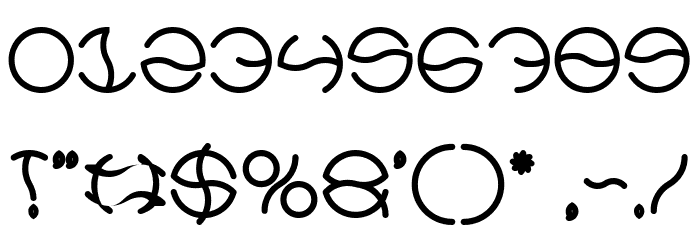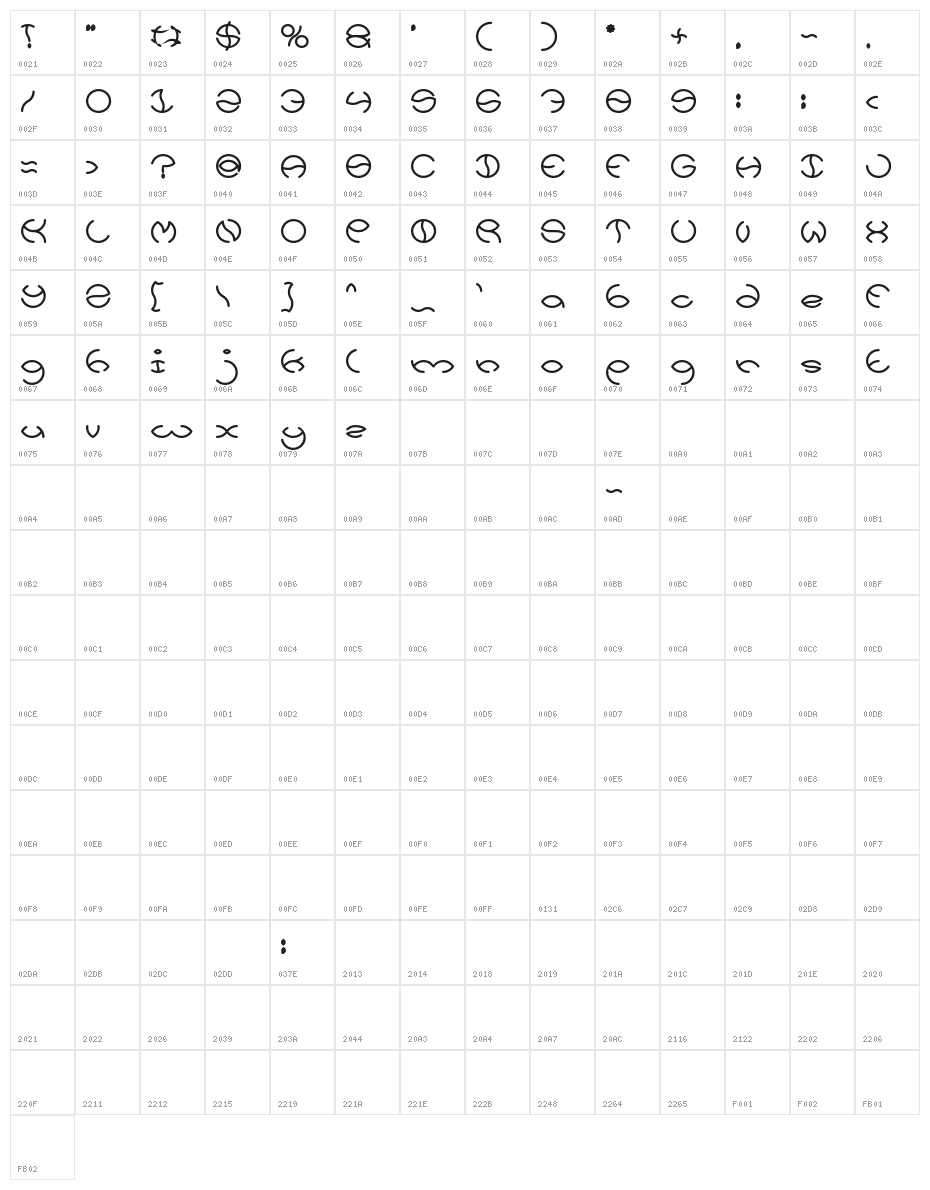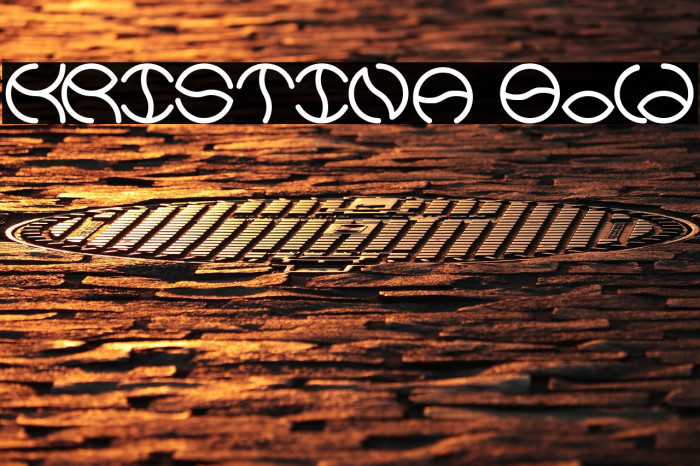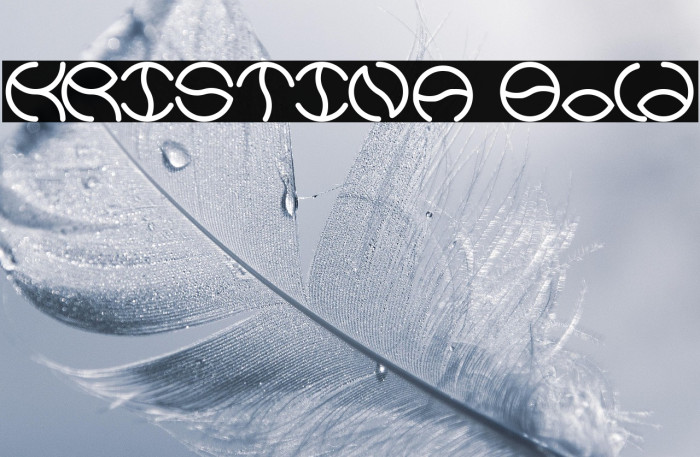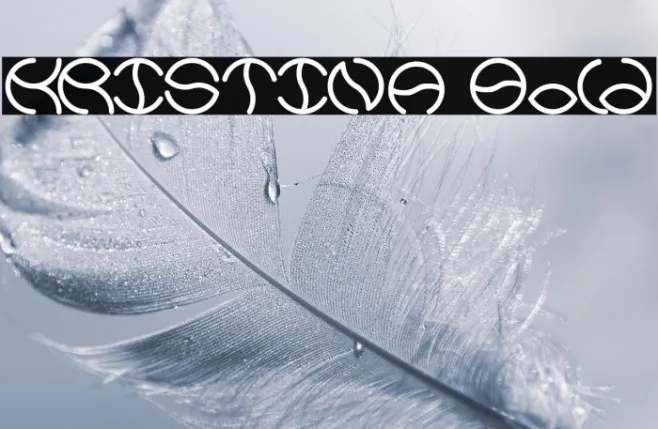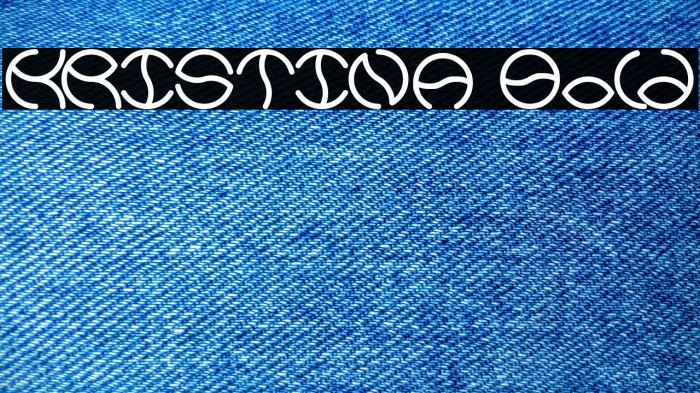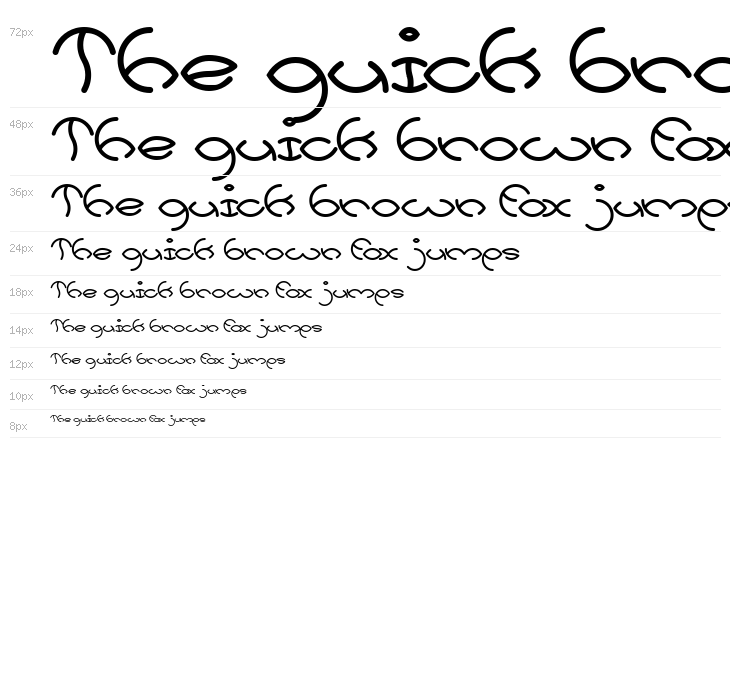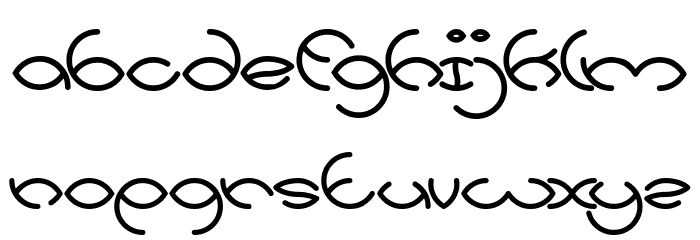
KRISTINA Bold Font
KRISTINA Bold Description
This font features a unique and artistic design, characterized by its circular and looping strokes that create a sense of motion and fluidity. The letters are bold and have a consistent thickness, giving them a strong presence on the page. The uppercase and lowercase letters maintain a cohesive style, with the lowercase letters mirroring the playful and rounded nature of the uppercase. The numerals and special characters follow the same design principles, ensuring uniformity across all glyphs. This font's distinct style makes it stand out, offering a creative and modern twist to traditional typography.
| Proposed Projects | Ideal for creative projects such as branding, posters, and artistic invitations. |